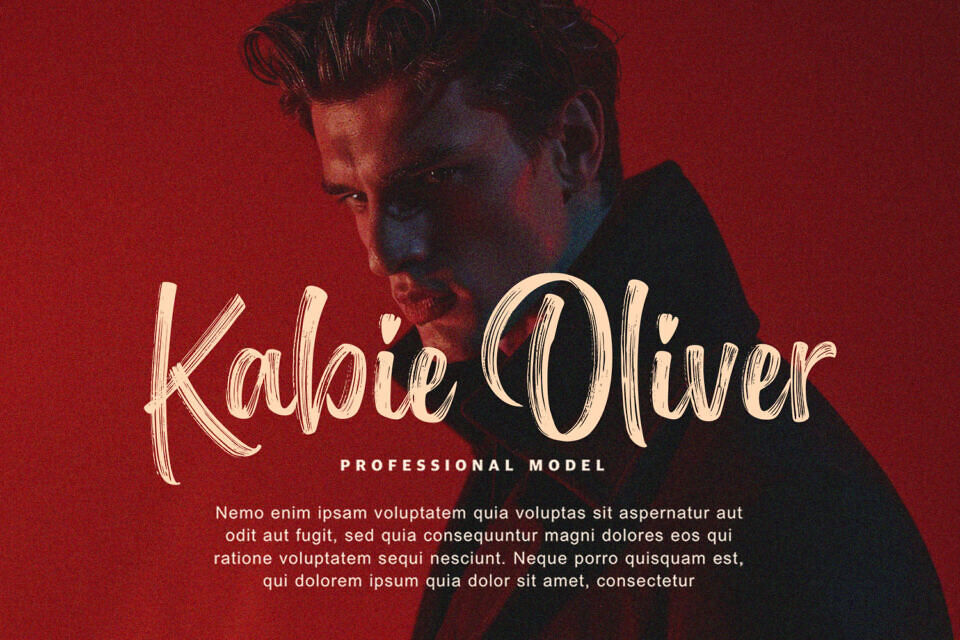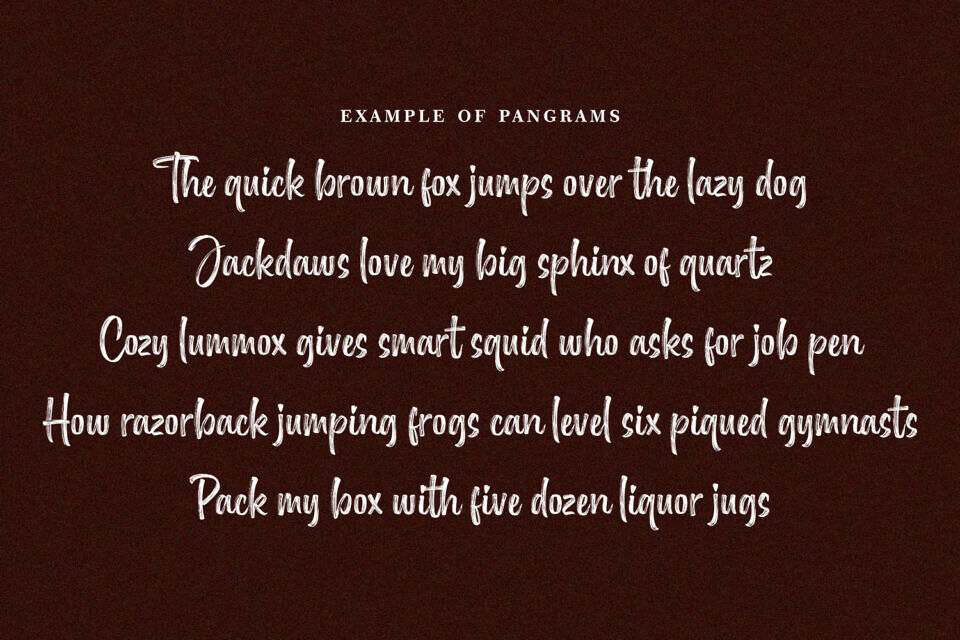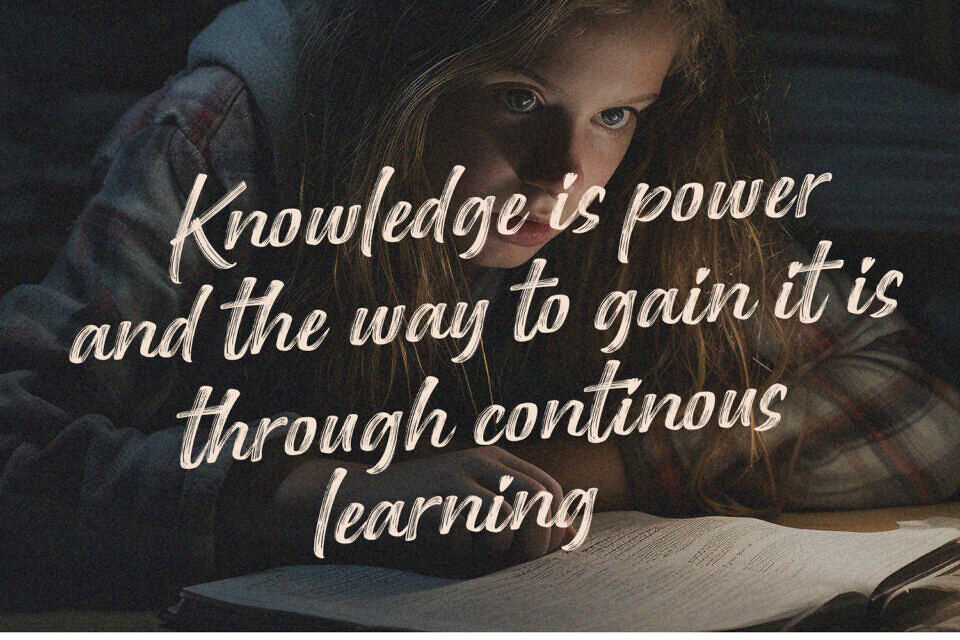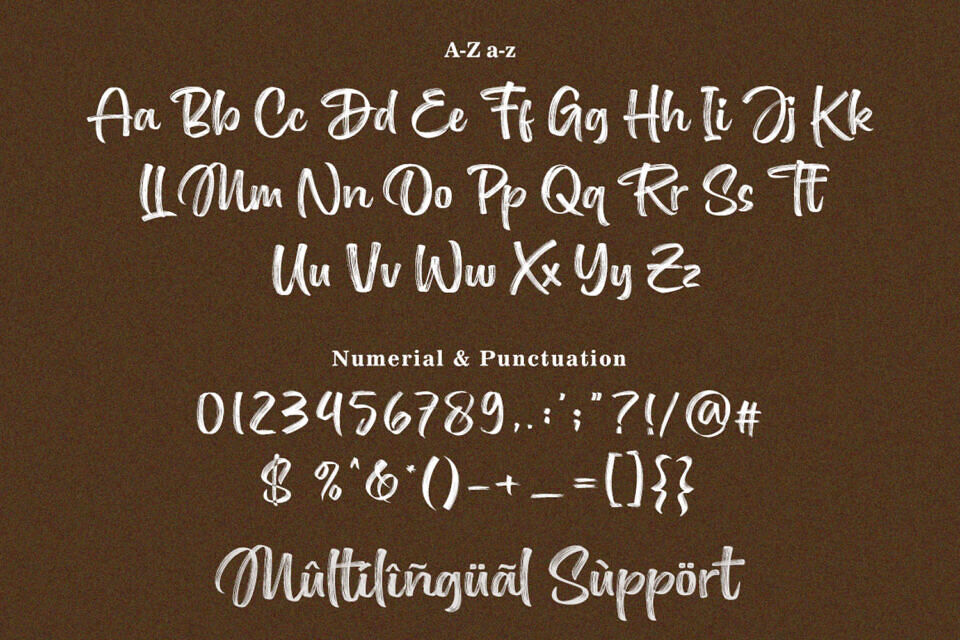
Delighter Font
Delighter is a handwritten brush script font. This font imparts a casual and natural appearance brush style. This font can convey a range of moods, from relaxed and friendly to artistic and eccentric. Delighter is ideal for logos, quotes, product packaging, or anything which needs a typographic turbo-boost.